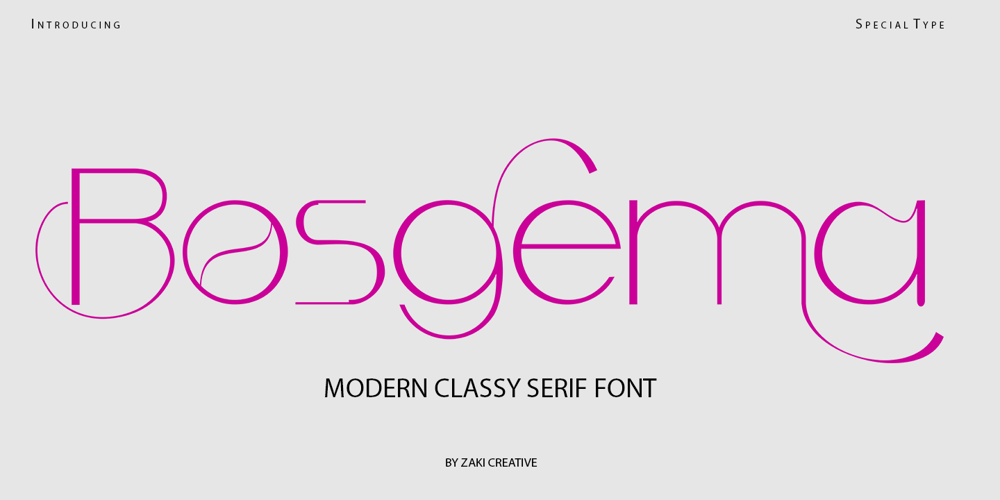
Bosgema Font Family was designed by Teuku Muhammad Zaki and published by Zaki Creative. Bosgema contains 1 styles and family package options. Bosgema is a modern classy ligature serif typeface comes with joining ligatures that give it a fancy and unique style. This awesome font is perfect for branding, logos, invitation, watermark and so much more.Basgem typeface comes with regular, Condensed and Condensed italic font styles. Uppercase & lowercase letters, numbers, punctuation, ligatures, alternates and multilingual support.If you have any questions, please feel free to get in touch.Thank you